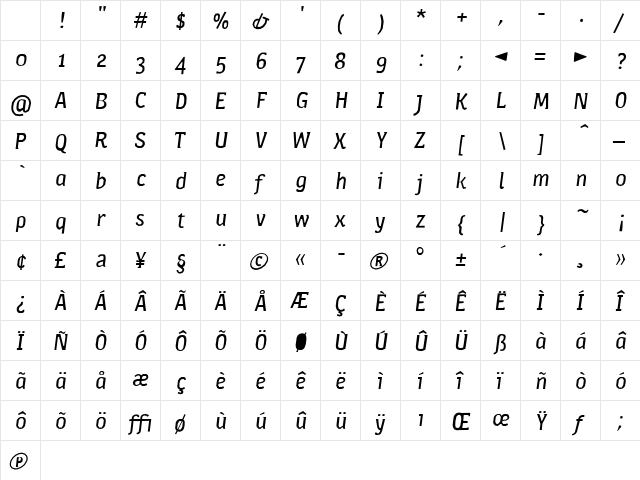
Complete Cornwall Medium Italic glyph index. Displaying only characters natively supported by Cornwall Medium Italic font.
Cornwall is a composed and adaptable typeface that performs quietly and consistently across a wide range of design contexts. The slanted form adds forward momentum and visual energy.
Pro Tip: Use Cornwall for emphasis, pull quotes, and subheadings where its slanted energy can add rhythm to the layout.